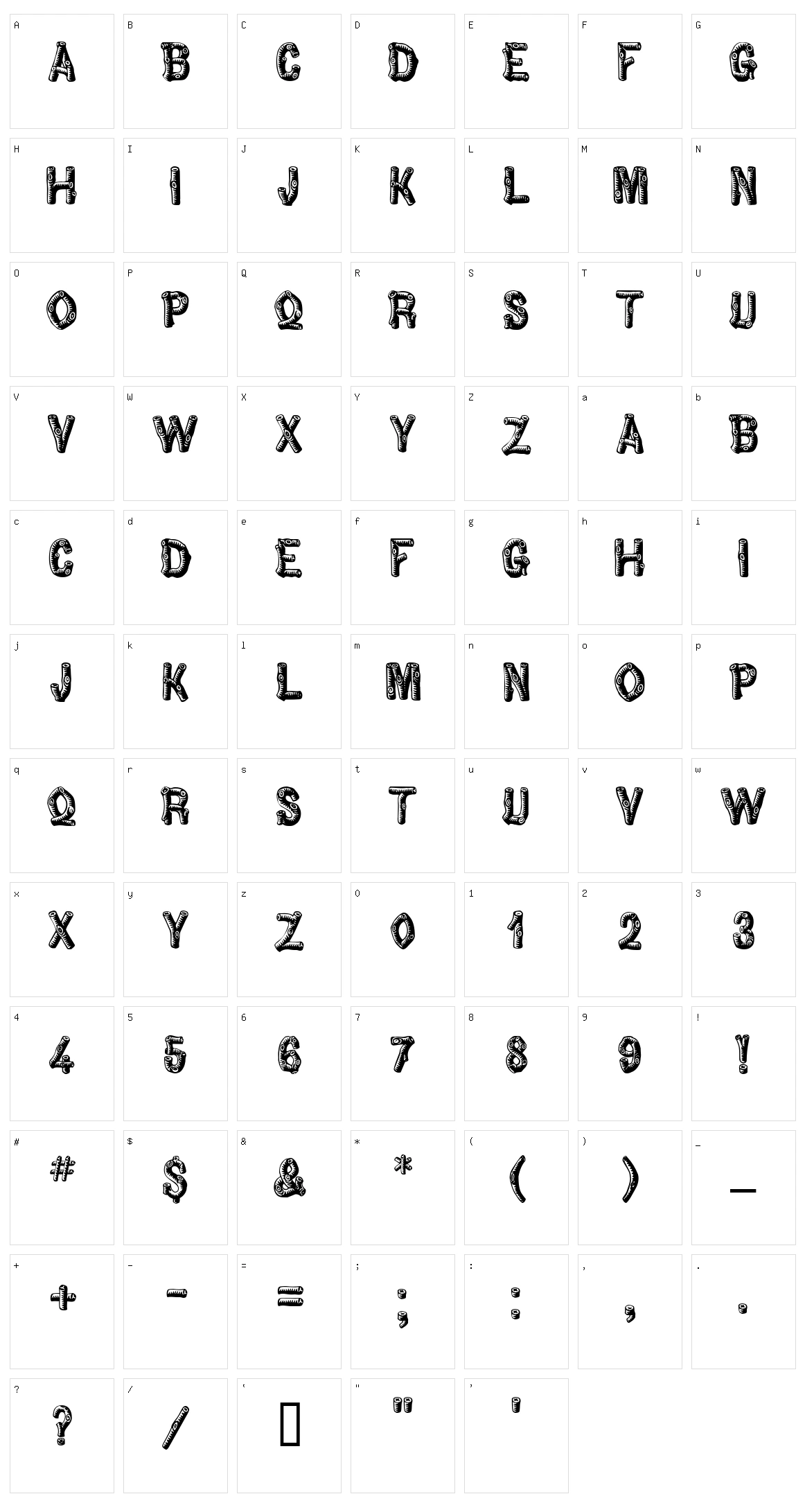
The free font Pinewood is carefully designed by Richard William Mueller, showcasing a thoughtful balance of creativity and usability and falls under the Western font style. When you download the ZIP file, it contains only 107.65 KB of font files, making it lightweight and quick to download. Please review the license details below to understand permitted usage and distribution rights. If license information is not available, we recommend using this font for personal projects only or contacting the author directly for commercial usage permissions.
Pinewood is a typeface used mainly for display work. It's great in: ads, newsletters, headlines, or for any desktop publisher who wants that something ÒextraÓ to stand out in their design work. Note: this typeface will use more memory than most, so don't download a lot of different fonts when you use this one or you'll overload your printer's memory. If you're using Adobe's Type Manager, you may tax it's memory use as well. Remember, even if you use this font only once, it's well worth the price (See below).